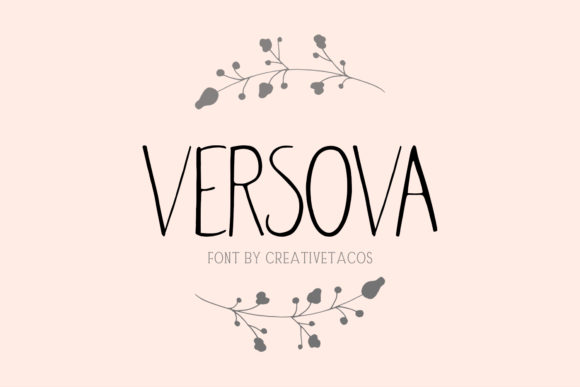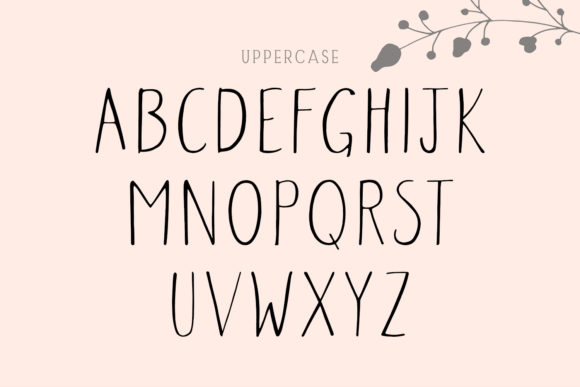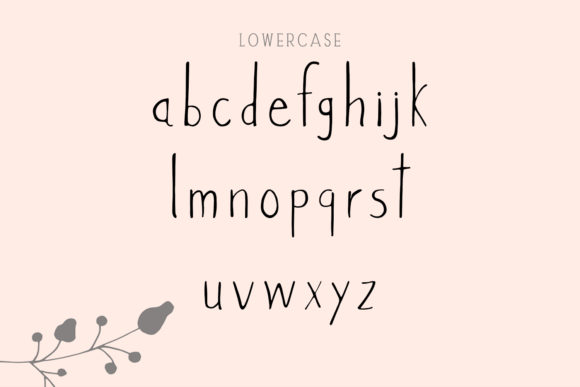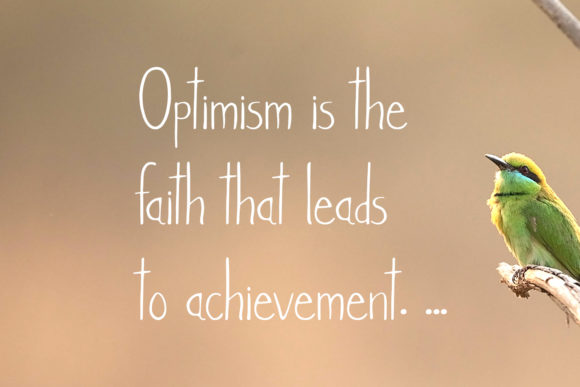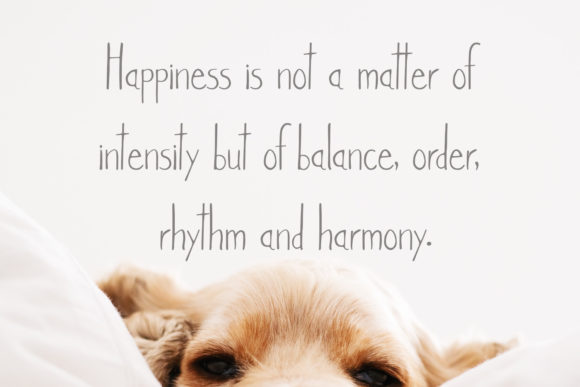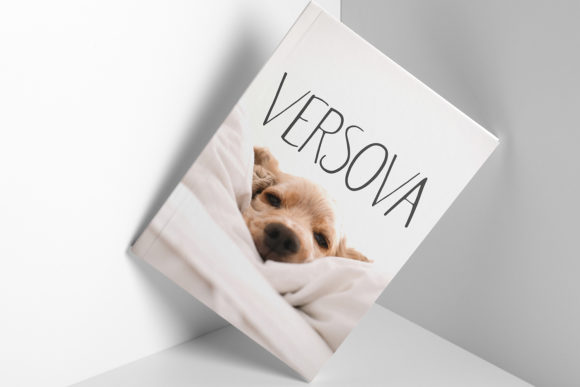
Versova Font
About Versova Font
Versova is a modern and beautiful script font. Its casual charm makes it appear wonderfully down-to-earth, readable and, ultimately, incredibly versatile. Versova will look outstanding in any context, whether it’s being used on busy backgrounds or as a standalone headline!